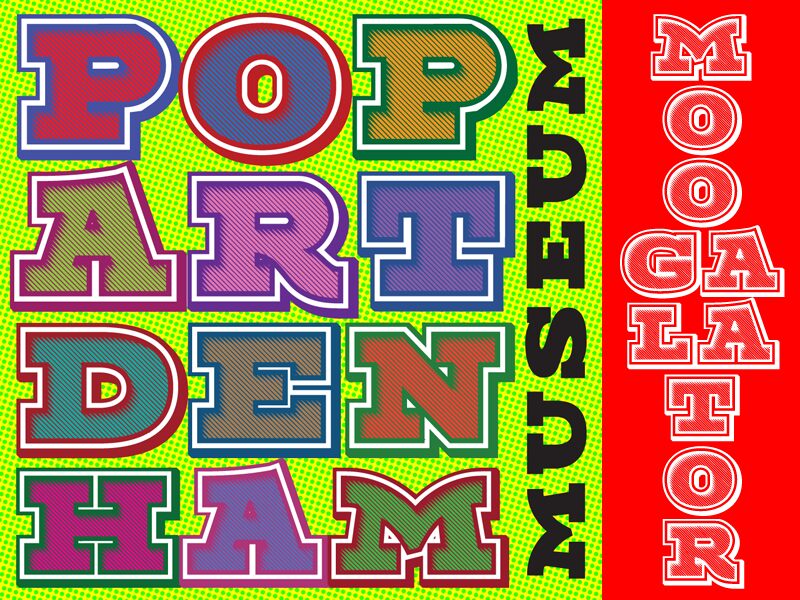
I needed some letters with shading and decided to expand it to a full typeface. The fat slab serifs get in the way and make some characters look squashed here and there, but hey. I'm sure there are some people who can use it and I had fun making it.
It was harder than I thought it would be though, especially the shading. Took me an entire week.
If you want to fill in the inside, you can duplicate what you've written in Moogalator and then change the font to Moogalator Filler. It should fit exactly into the inside as all bearings and kerning are identical. Please don't use the Moogalator Filler as a standalone font, it isn't. It'll be ugly, badly kerned and it'll have no diacritix.
Made by Tup Wanders in FontCreator 15 pro from High-Logic.com